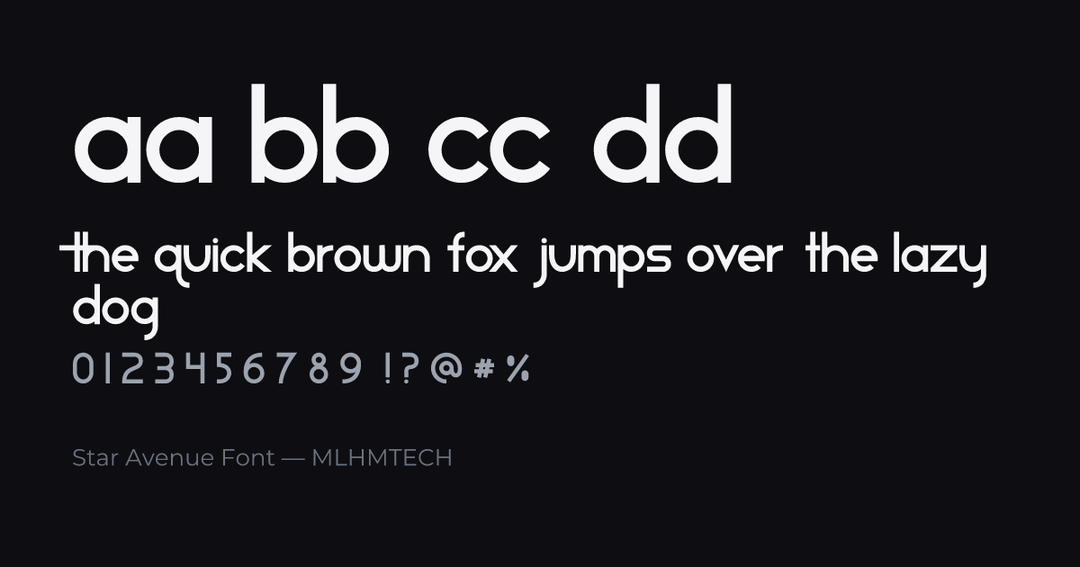
Star Avenue Font
Star Avenue is a stylish display font that adds elegance to any design. Ideal for branding, invitations, and headlines.
Star Avenue is a handpicked font from a curated collection, designed to bring a touch of sophistication to your projects. Its clean lines and modern curves make it versatile for both digital and print media.
Perfect for designers seeking a unique typeface that stands out while maintaining readability.